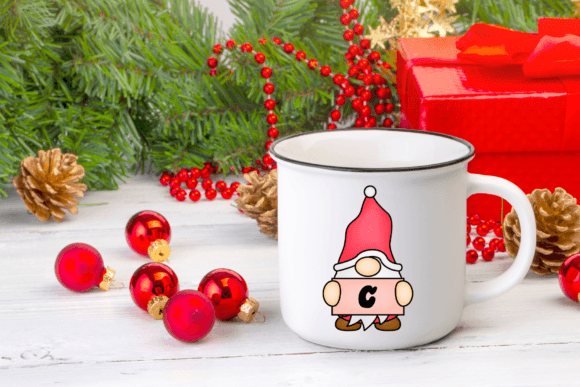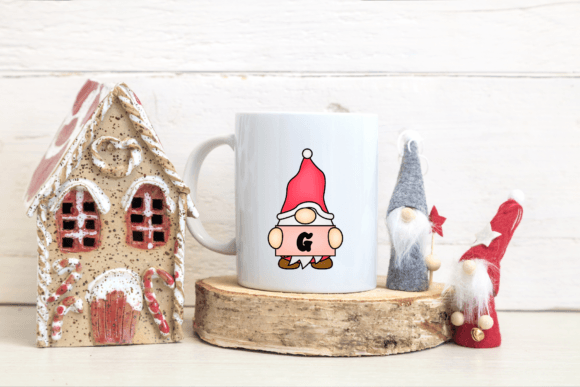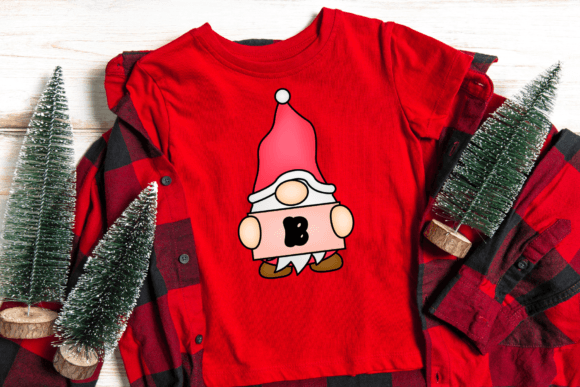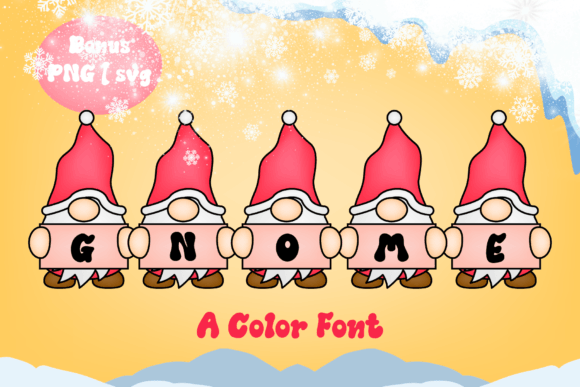
Introduction to Color Gnome Font
Color Gnome is a Color font with a Christmas theme.
It embodies playfulness and authenticity and is the perfect choice for all your favorite projects, or even for blog posts, logos, branding, ads, invitations, greeting cards, planners, photo albums, decorations, and much more Add it to any of your designs, and enjoy the results.
Key Features of Color Gnome Font
Why Choose Color Gnome Font?
Color Gnome Font offers exceptional quality and versatility, making it a valuable addition to your design toolkit. Whether you’re creating for personal projects or commercial use, Color Gnome Font delivers professional results.